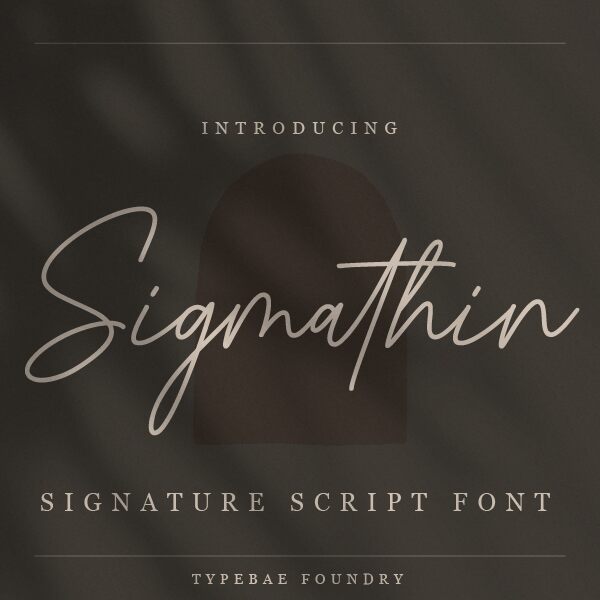
Sigmathin font, crafted by Typebae Foundry, embodies a charming handwritten style that effortlessly captures the essence of personal touch. Its delicate strokes and airy flow create an inviting visual experience, perfect for conveying warmth and creativity. The light design enhances its elegance, making it suitable for various applications-from elegant invitations to artistic branding.
The balance between sophistication and casual flair allows Sigmathin to shine in both formal and informal contexts. Whether used in a modern website layout or as a signature on personal stationery, this font adds an authentic element that resonates with audiences. Embrace the unique character of Sigmathin to bring your projects to life with style and grace.
Sigmathin